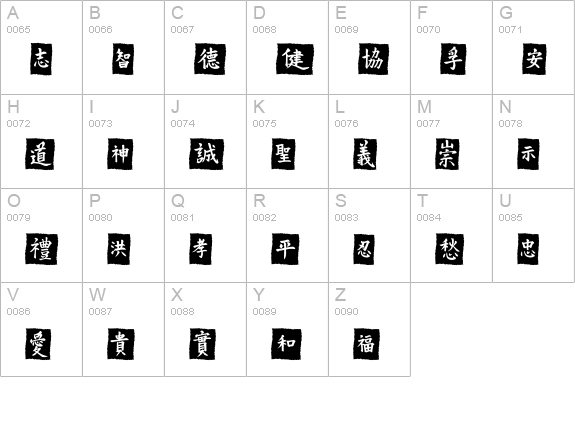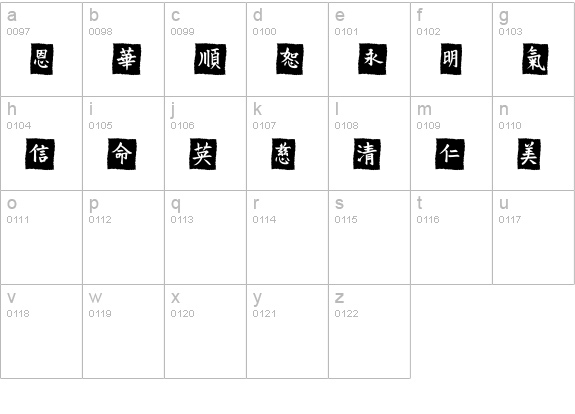
VTMeiOrnamentsOnBlack Font Details
Introducing VTMeiOrnamentsOnBlack font, a stunning and elegant typeface that will add a touch of sophistication to any design project. This exquisite font features intricate and ornate ornaments delicately placed on a sleek black background, creating a mesmerizing visual effect. With its timeless appeal and attention to detail, VTMeiOrnamentsOnBlack font is perfect for a wide range of creative endeavors. Whether you are designing wedding invitations, branding materials, or simply looking to elevate your typography game, this font will effortlessly captivate your audience. One of the most remarkable aspects of VTMeiOrnamentsOnBlack font is that it is absolutely free. Yes, you read that right! This font is freely available to download at FontsMarket.com, allowing you to enhance your designs without breaking the bank. Now you can access this exquisite font and bring your creative visions to life without any limitations. The versatility of VTMeiOrnamentsOnBlack font is truly remarkable. Its timeless elegance makes it suitable for both classic and contemporary designs, effortlessly blending tradition with modern aesthetics. The intricate ornaments add a touch of opulence and refinement, making every letter and character a work of art in itself. Designed with meticulous attention to detail, VTMeiOrnamentsOnBlack font ensures legibility even at smaller sizes, making it perfect for both print and digital mediums. This font is a true testament to the artistry of typography, as it effortlessly combines beauty and functionality. Whether you are a professional designer or a creative enthusiast, VTMeiOrnamentsOnBlack font is a must-have in your typographic arsenal. Its unique and captivating design will elevate your projects to new heights, leaving a lasting impression on your audience. So why wait? Go ahead and download VTMeiOrnamentsOnBlack font from FontsMarket.com today, and unlock the endless possibilities of this exquisite typeface. Let your creativity soar and watch as your designs come to life with the timeless beauty of VTMeiOrnamentsOnBlack font.